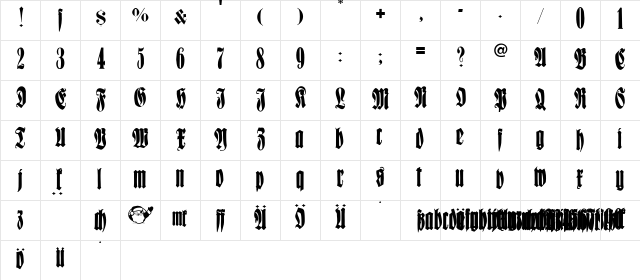
FrakturCondensedHeadline Regular Font Preview
FrakturCondensedHeadline Regular
FrakturCondensedHeadline Regular Font Details
Design Context for FrakturCondensedHeadline Typeface
FrakturCondensedHeadline draws on the rich tradition of blackletter calligraphy, with dense, angular strokes that evoke medieval manuscripts and old-world craftsmanship.
A natural fit for music packaging, gothic editorial design, and any project that needs historical weight.
Font Pairing: Pair with a clean neutral sans-serif for body copy to let FrakturCondensedHeadline's character lead without overwhelming the composition.
Pro Tip: Reserve FrakturCondensedHeadline for display and logo use — pair it with a clean sans-serif for body copy to prevent the composition from feeling oppressive.